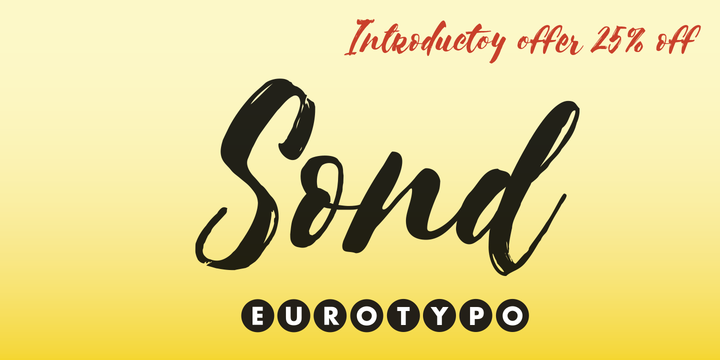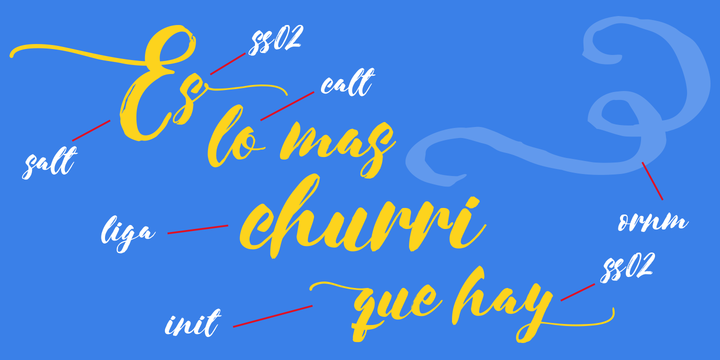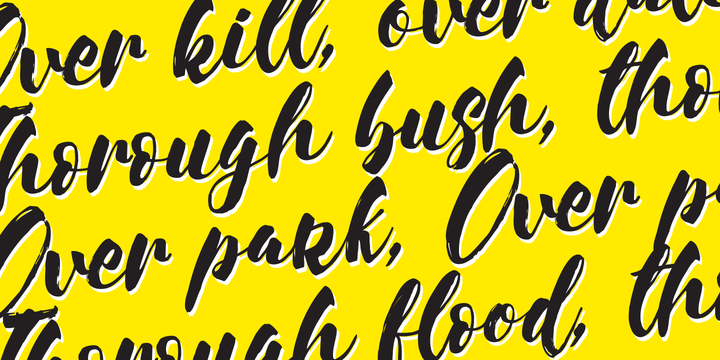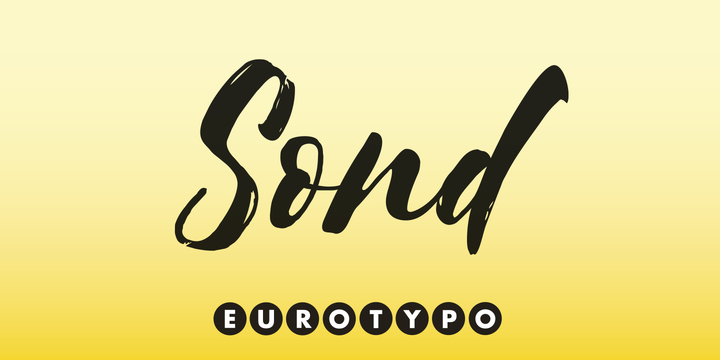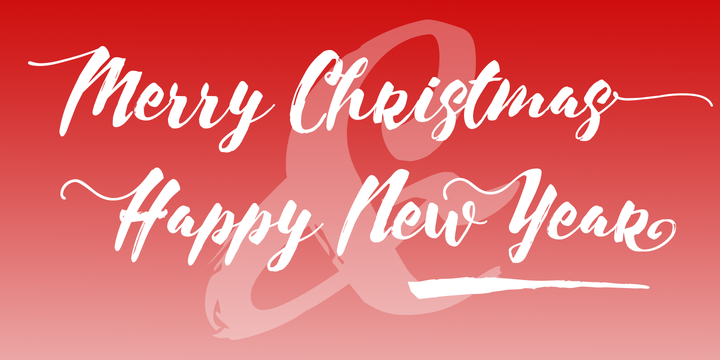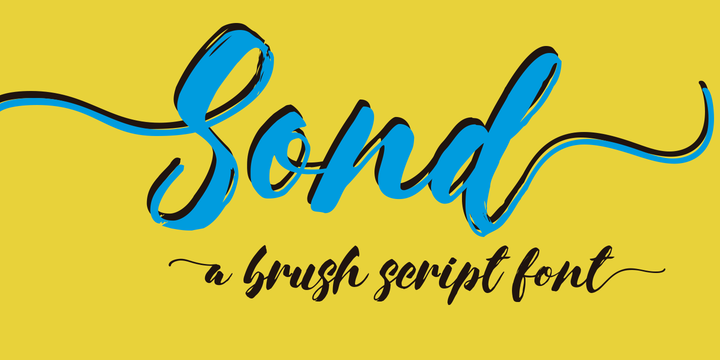
Sond Font
Sond is a casual, modern and hand brushed font. I’ve designed Sond carefully with the intention to preserve in its glyphs the original tell-tale dry brush imperfections and a bouncy baseline for a more personalized effect even more authentic.
As an exclusively Open Type release, with 519 glyphs and ornaments, it has special alternatives for all letters with lots of possibility an infinity of combinations. There are plenty of options to allow you to create something unique and special: standard ligatures, swashes and stylistics alternates for each letter, beginning and ending letters. This lovely fonts have already an extended character set to support Central and Eastern as well as Western European languages.